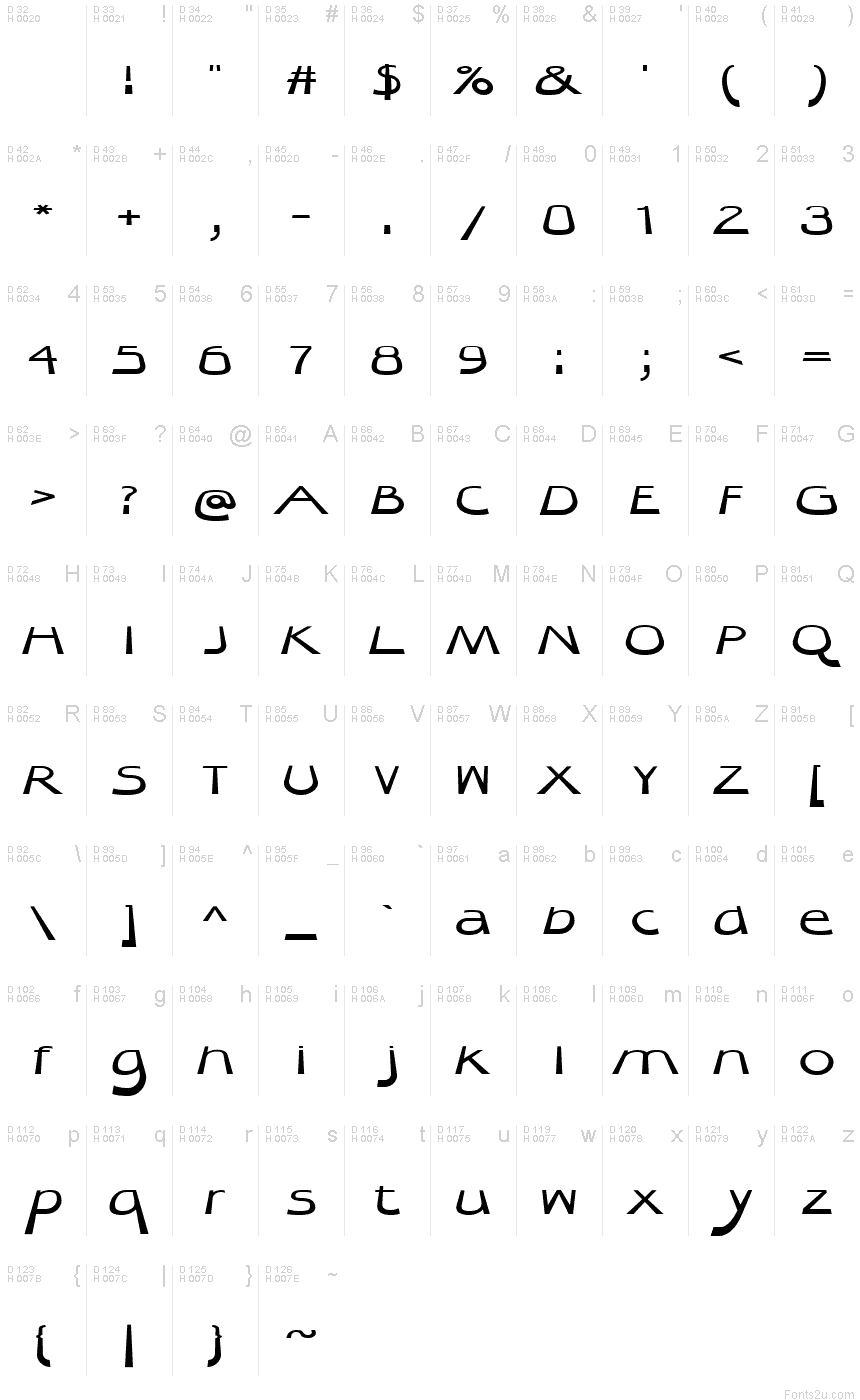
Quibel Bold Italic
Quibel Bold Italic, by Quibel, is a free distorted display font with a sly Art Nouveau drift and a deliberately offbeat slant. The letters mix smooth, rounded bowls with sudden angular cuts, so the font feels elegant at first glance and then slightly unruly, especially in the long, hooked Q and the pinched joins that keep the rhythm uneasy.
It fits poster titles, music packaging, magazine cover lines, boutique branding, and event flyers where a free font can carry a moody, stylized voice without turning ornate. Use it in short headlines, title cards, or monogram-like marks, where that tilted silhouette and odd little kinks give even a few letters a lot of character.